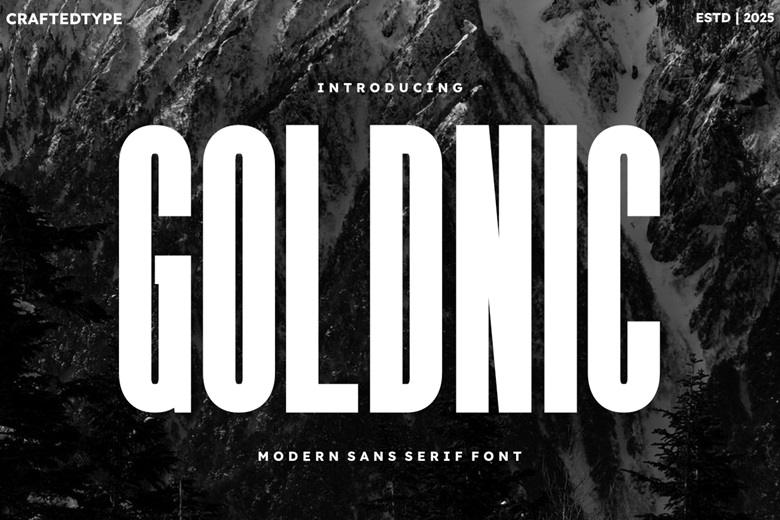
Goldnic Font
Goldnic is a sharp and elegant condensed sans-serif typeface aimed at designers that appreciate a clean look and a powerful impression. This font offers tall and narrow letterforms and beautiful spacing making it ideal in print-on-demand work such as t-shirts, posters, mugs and tote bags and in titles of films, branding, logos, and in contemporary packaging.
Its extensive design style can be used in professional and fun designs and therefore can be used to create projects, minimalist branding or cinematic designs.
Goldnic Sans Serif Font